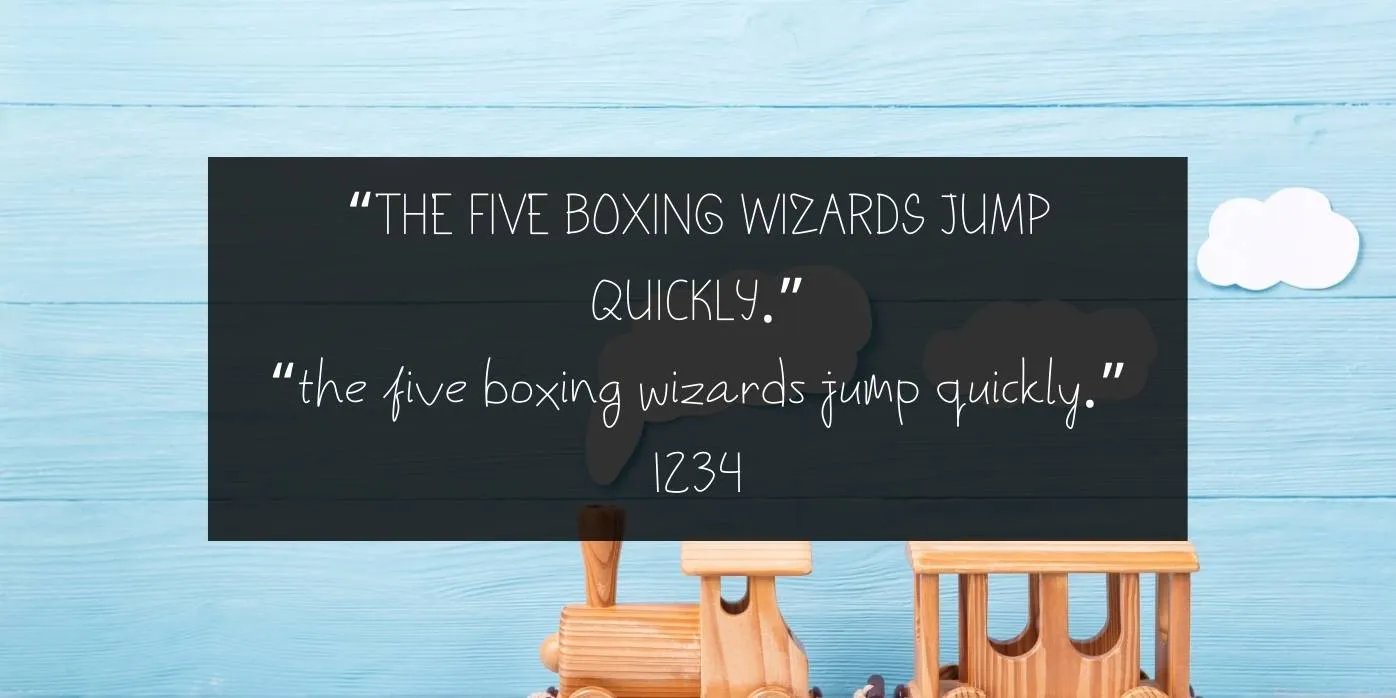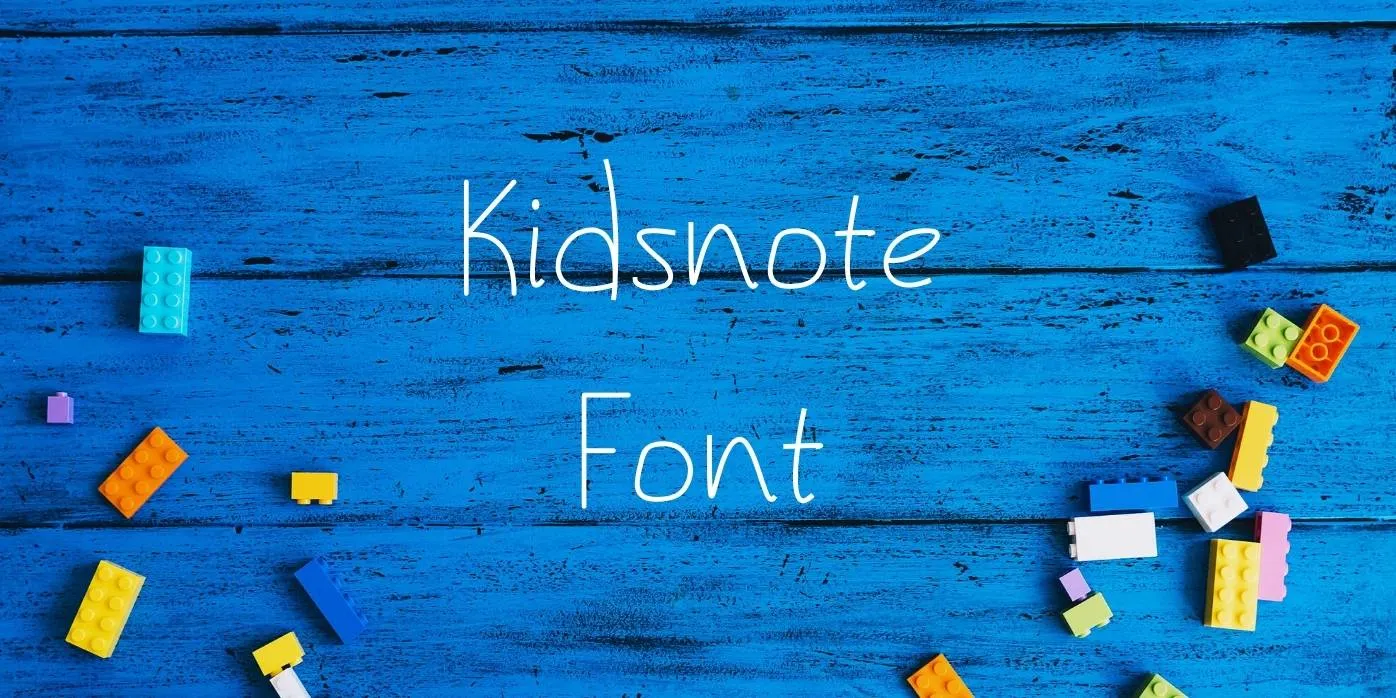
Kids Note Font
Kids Note Font belongs to the fancy font family. This stylish typeface was developed by ReyreyBlue. It is well specified for the CSS. This font is perfect for all your creative projects.
Its copy and paste function is perfect for many designs. For more classic features, you will have to use its alternative dragonball z font which has the same features. You can also use this typeface for Adobe. It has neat and clean textures.